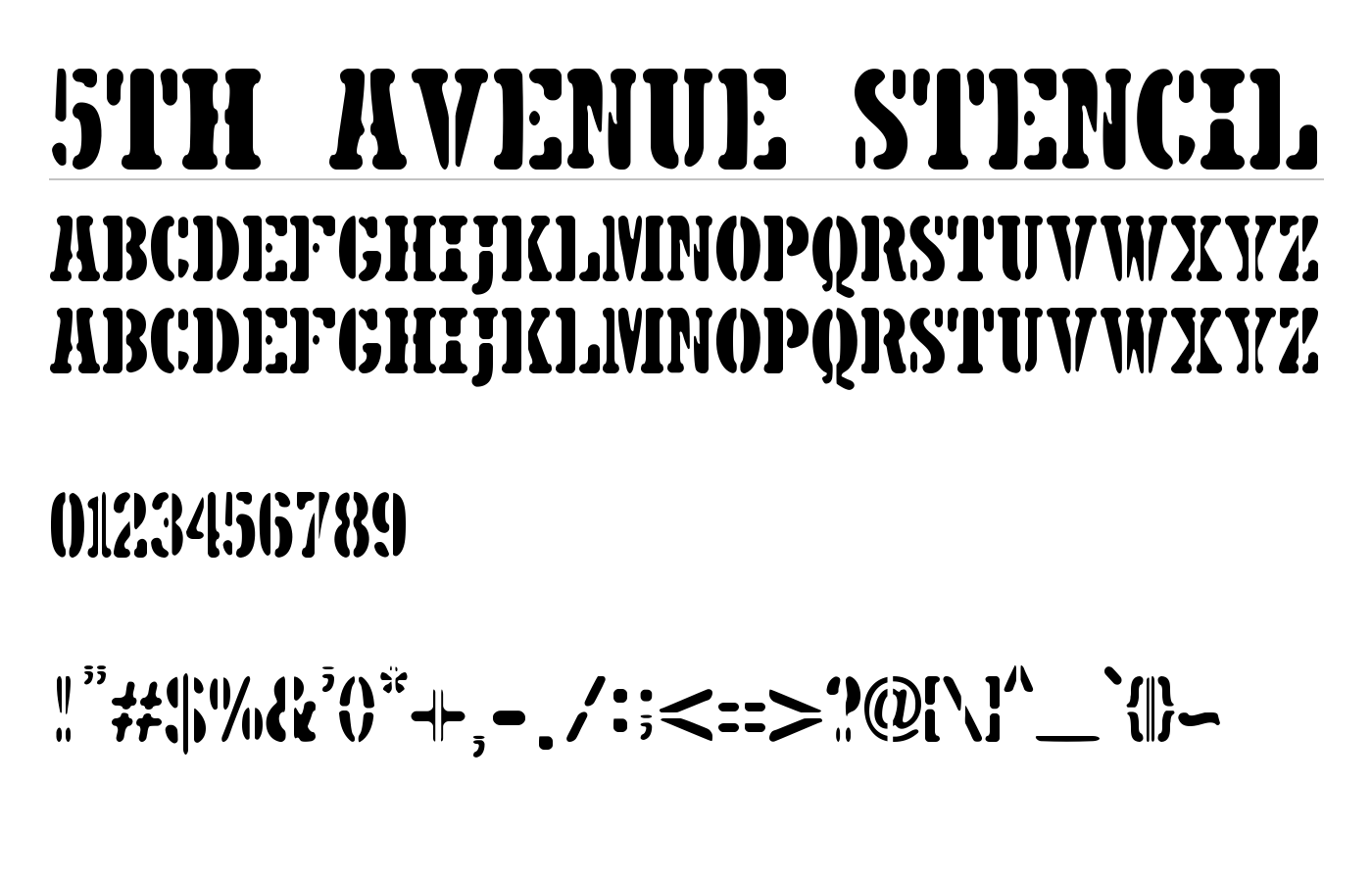
5TH AVENUE STENCIL is a bold, stencil-style serif font with a strong industrial and vintage vibe. Its thick, blocky letterforms feature distinctive cut-outs and a consistent weight, giving it a sturdy, impactful presence that works well for headlines, logos, and signage. This font is ideal for designs needing a rugged, military-inspired look with a touch of classic stencil charm.
5TH AVENUE STENCIL Font
About 5TH AVENUE STENCIL Font